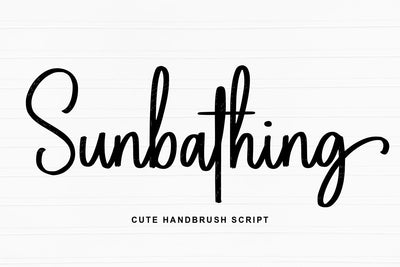
Sunbathing
Sunbathing is a cute handbrush script that shines with a natural, textured charm. Its playful strokes and organic flow capture the warmth of handwritten lettering, making it perfect for designs that need a touch of personality and sunshine. Whether for summer quotes, branding, or creative projects, Sunbathing brings a cheerful and authentic vibe to every word.